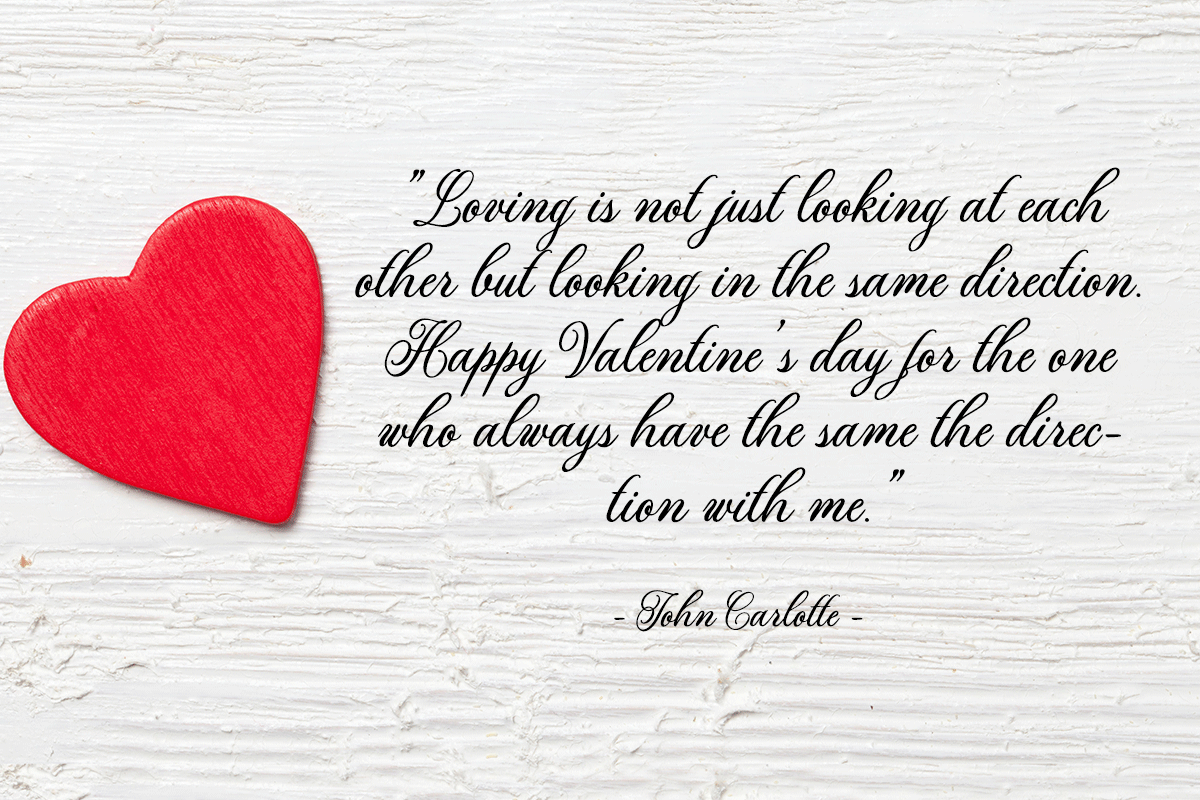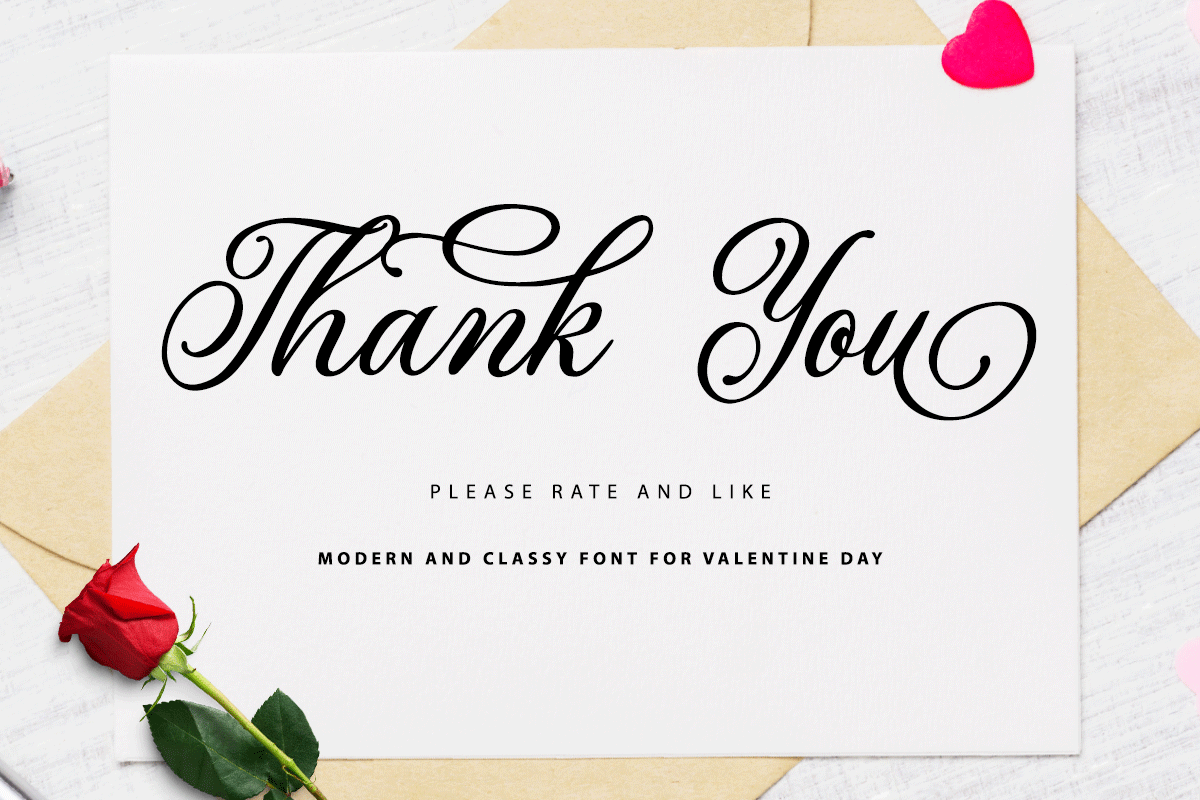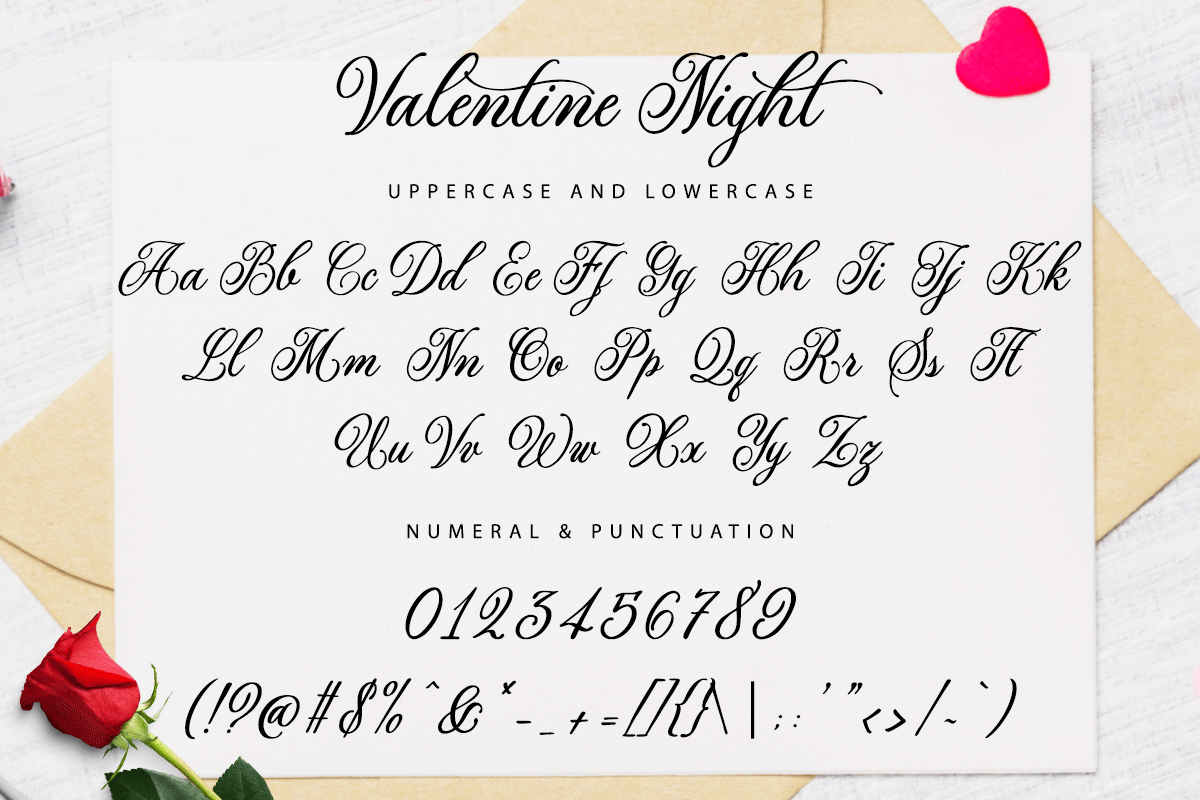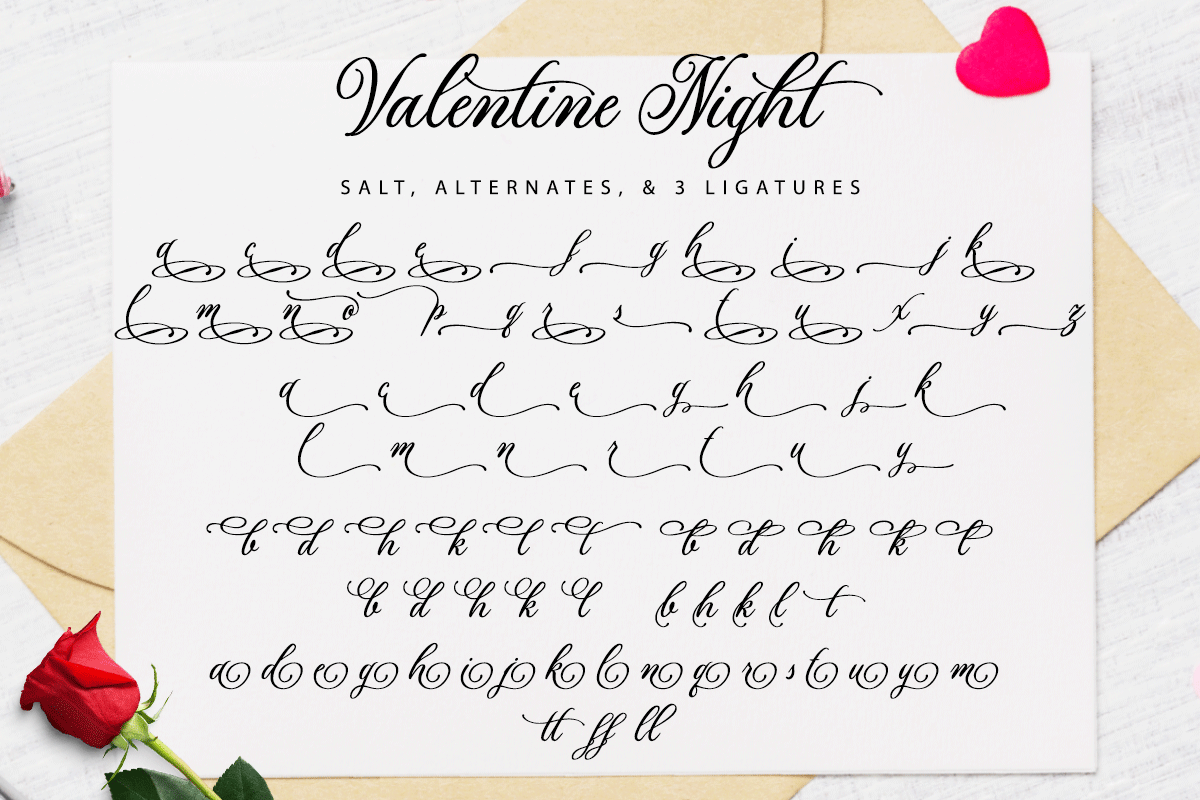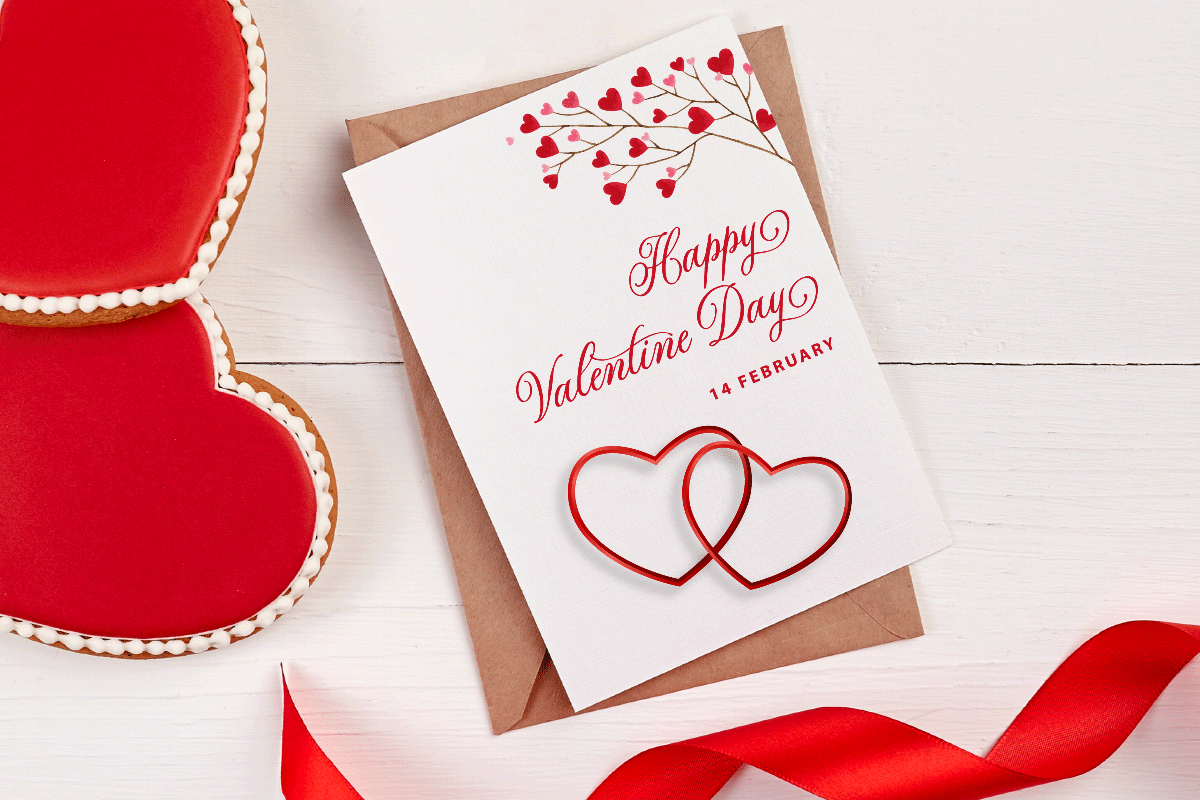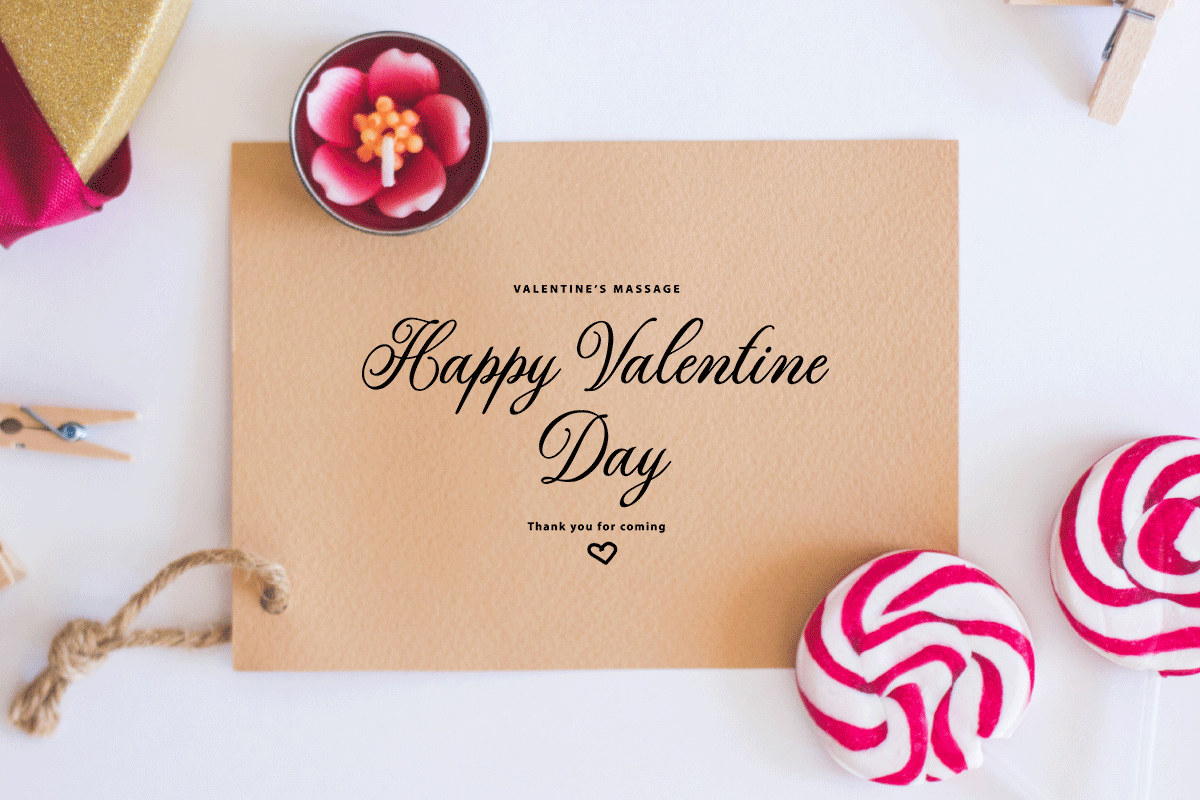
Valentine Night Classy Valentine Font Look how elegant and romantic the Valentine Night Classy Valentine Font looks. This font was created to use as a digital or print font. Valentine Night Classy Valentine Font carries the characteristics of a modern and elegant font that can amaze anyone who reads it. Valentine Night Classy Valentine Font is one of the aesthetic typefaces from thin arcs. This typeface features beautiful curves in some of the letters. Valentine Night Classy Valentine Font is the best Valentine font and has characteristics suitable for formal events with a romantic theme. This font is the best romantic font to use for love letters, Valentine's invitations, souvenirs, and inscriptions on decorations. Valentine Night Classy Valentine Font is one of the most suitable fonts to be used for product brands that answer the needs of women, such as fashion and beauty products, as well as shop decorations in the month of Valentine's. Valentine Night Classy Valentine Font is an eligible font. Valentine Night Classy Valentine Font brings simplicity, elegance, and aesthetic vibes to everything that goes with it. This impression arises from how beautiful this font looks and its characteristics. Our Script and Signature font collections are compatible to use as Figma fonts, Canva fonts, Freepik fonts, and adobe fonts. They also work as Windows fonts and Apple fonts. For your social media needs, you can use and install fonts in our scriot typography collection to use as Instagram fonts, Facebook fonts, and Twitter fonts.